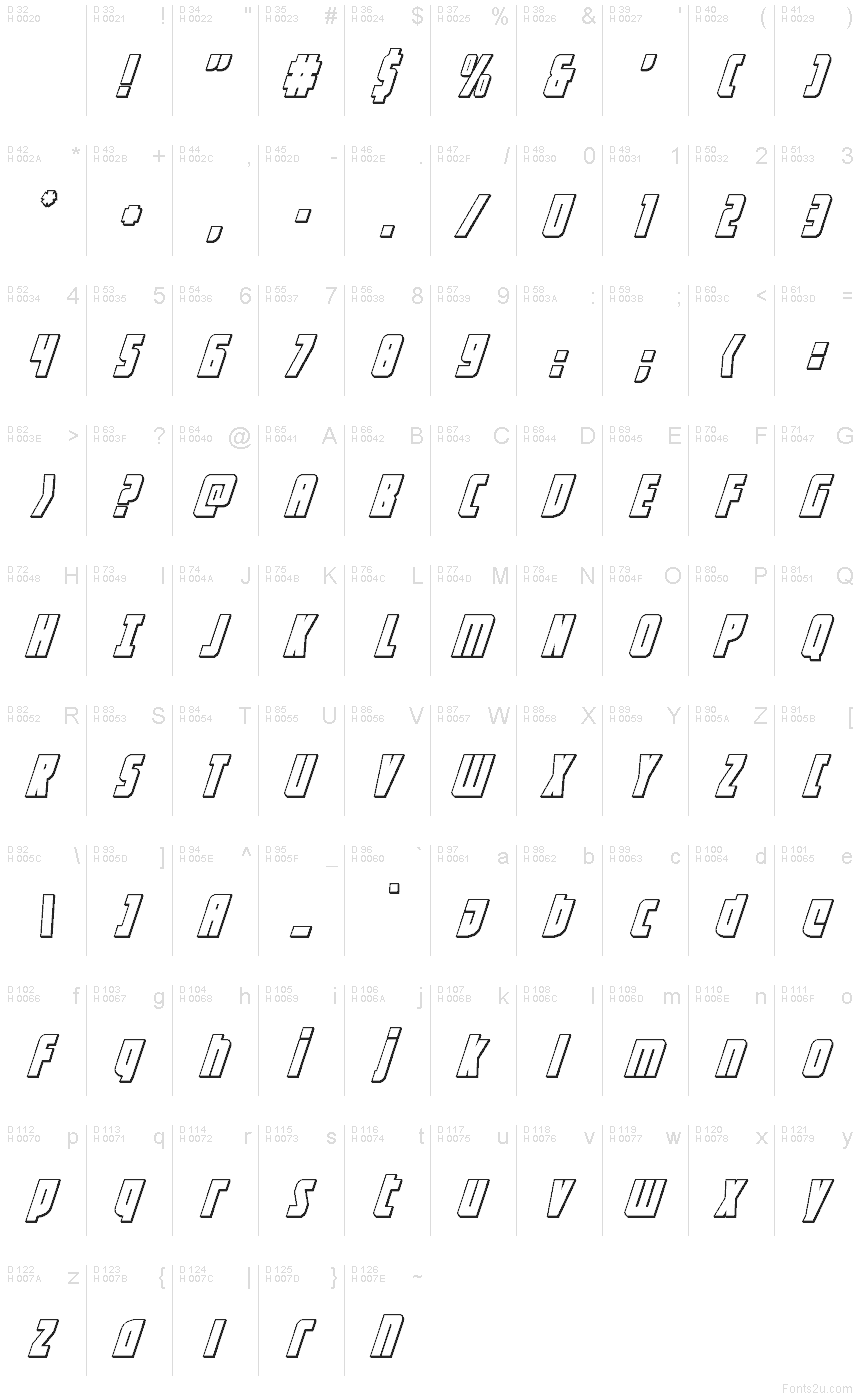
Impact Wrench 3D Italic
Impact Wrench 3D Italic font by Iconian Fonts is a futuristic condensed display font described as sleek, angular, and characterized by an energetic aura. Despite its modern appearance that displays hints of retro influences, the letters are bold and expressive with a three-dimensional effect. Its overall look features an eye-catching geometric structure sure to captivate every viewer.
Thanks to its particular style, this font works best for sci-fi movie posters and game titles. This free techno display font can also be used within logos, magazine covers, social media posts, ads, stationary sets and business cards, branding projects or packaging design where it would give you futuristic touch instantly!